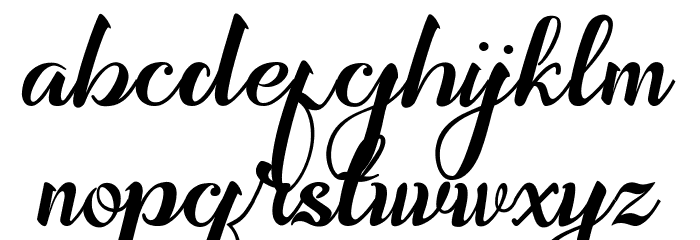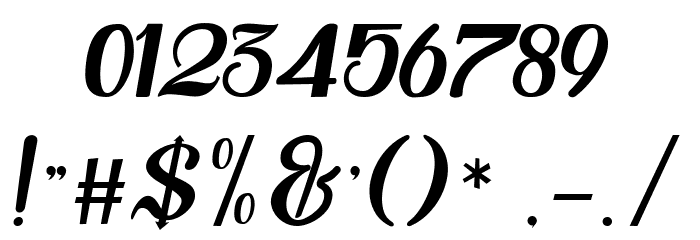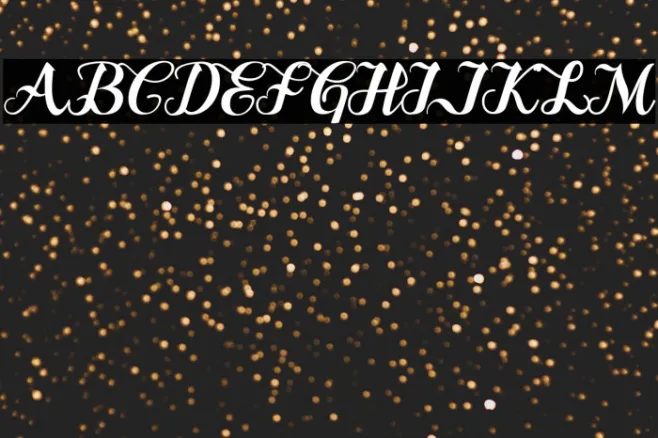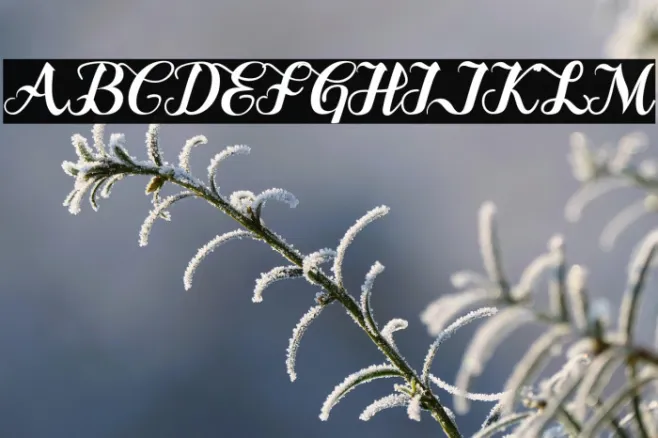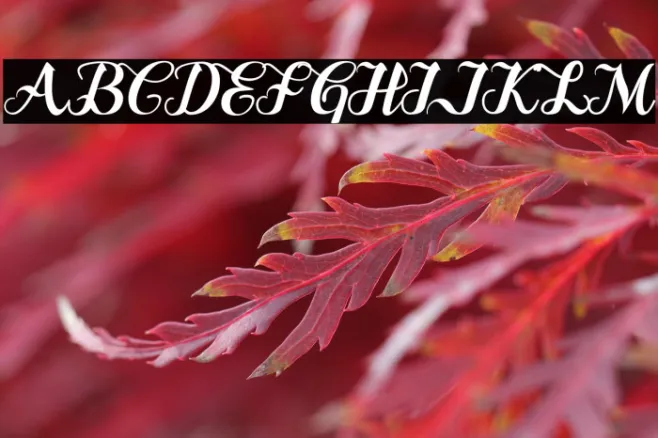
Syakia Font
This font showcases a sophisticated script style with elegant, flowing curves and a sense of fluidity. The uppercase letters are ornate, with intricate loops and flourishes that add a touch of classic elegance. The lowercase letters maintain a consistent style, featuring smooth, connected strokes that enhance readability while preserving the decorative nature. Numbers and special characters are designed to complement the overall aesthetic, ensuring a cohesive look across all text elements. The font's design is ideal for creating a sense of luxury and refinement, making it suitable for high-end branding and design projects.
An elegant script font with flowing curves and classic flourishes.
- Font: Syakia
- Proposed Projects: Ideal for wedding invitations, luxury branding, elegant signage, and decorative headlines.
- Category: Script
- Overall Style: Classic
- Use Case: Logos, Invitations, Decorative Headlines